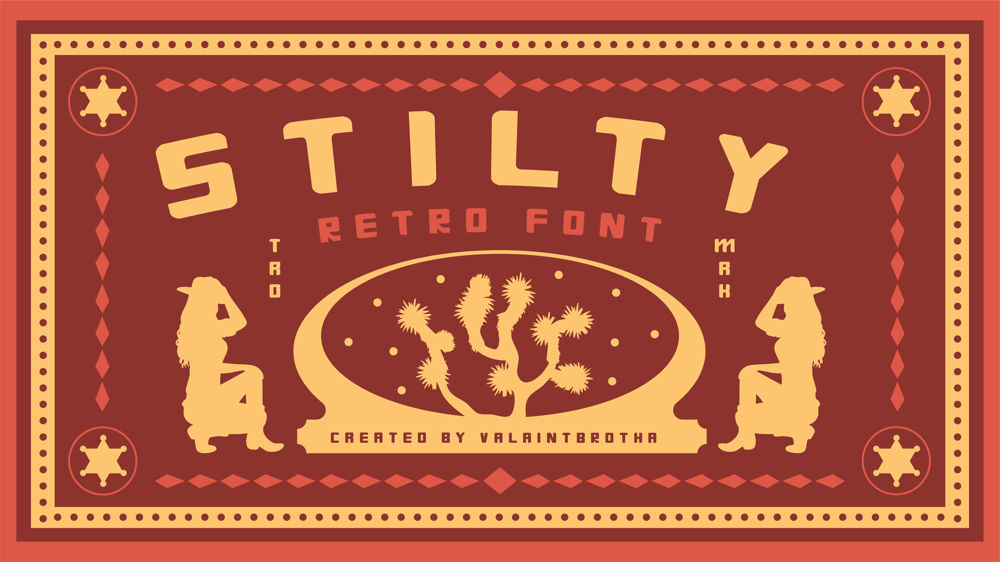
Stilty
Stilty font
Stilty Font Family was designed by Agus Prima and published by Valiantbrotha. Stilty contains 2 styles and family package options. Stilty Font is a striking display sans serif typeface designed to make an impact. Its strong, clean lines and sharp angles exude confidence and authority, making it the perfect choice for headlines, branding, posters, and digital designs that demand attention.